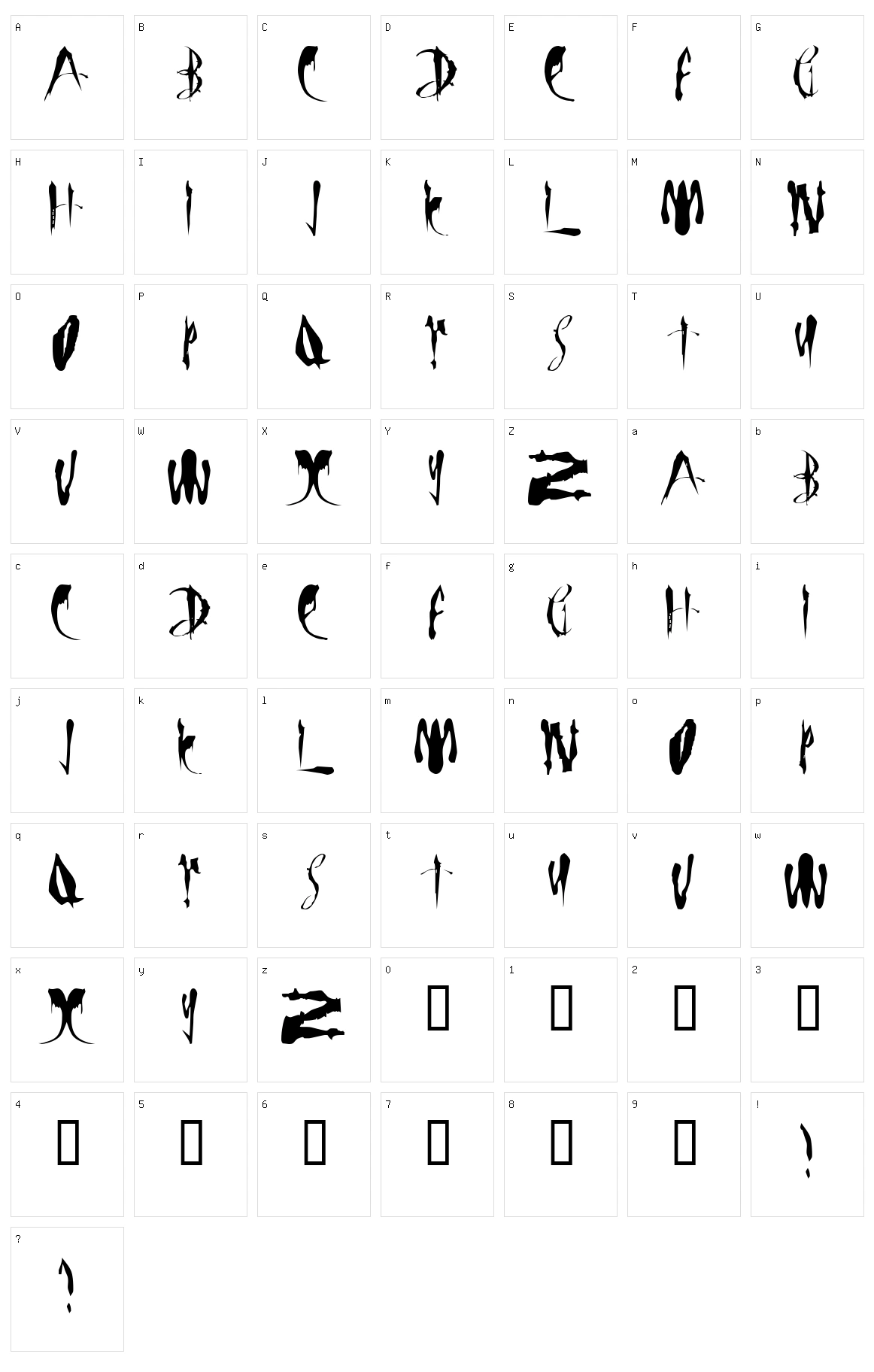
The free font LMS Bloody Brujah is carefully designed by London Letters, showcasing a thoughtful balance of creativity and usability and falls under the Horror font style. When you download the ZIP file, it contains only 10.71 KB of font files, making it lightweight and quick to download. Please review the license details below to understand permitted usage and distribution rights. If license information is not available, we recommend using this font for personal projects only or contacting the author directly for commercial usage permissions.
by London Stokes
This font is upper and lowercase letters. This font was made by me as an alphabet. I used it to make all the titles on my VamPress web site (http://www.geocities.com/rioarizona/Vampire.html). The letters are loosely based on the title graphic from the 1993 movie: "Bram Stoker's Dracula".